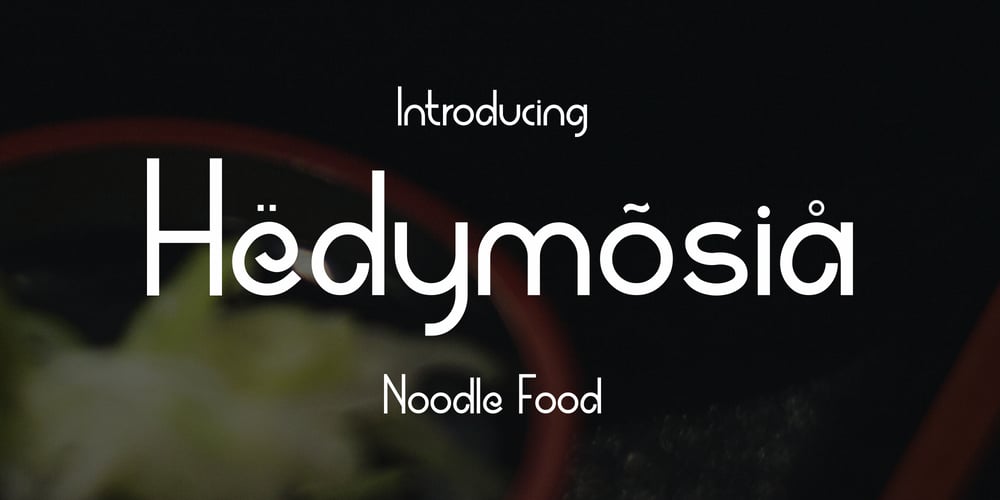
Hedymosia Font Family was designed by Iskandar Zulkarnain and published by Wontenart. Hedymosia contains 1 styles and family package options. Hedymosia is a font that has unique glyphs on the curve intended to be shaped like noodles or spaghetti or similar food.font suitable for the food.Noodle food Font or anything about foods, New and Fresh font 2023, Thank You